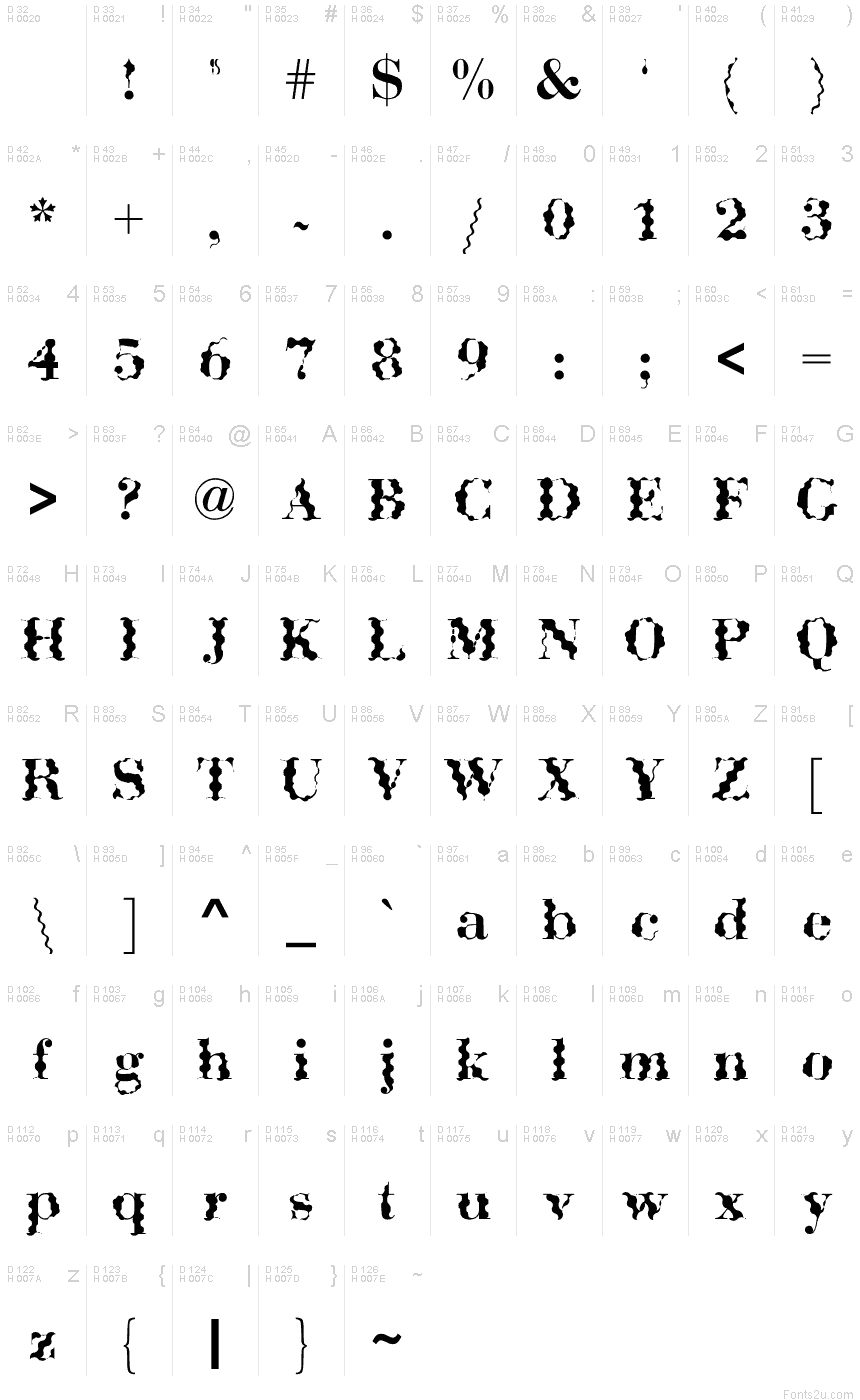
ABCTech Bodoni Wave
ABCTech Bodoni Wave font by Alltype is a free distorted serif typeface that twists classic elegance into something deliciously warped. The familiar Bodoni skeleton is still there, but it’s melted into inky, irregular blotches that feel fluid and almost organic, like letters seen through rippling water. The ABCTech Bodoni family roots keep it readable, while the wave effect adds a strange, hypnotic pulse that grabs attention instantly.
Using ABCTech Bodoni Wave, you can push headlines for rave posters, experimental album covers, horror titles, sci‑fi branding, edgy zines, and art events into surreal territory. This free font works best loud and large, where its wobbly contours and dense texture can really breathe. Try pairing it with a clean geometric sans in small text to anchor its wildness and keep layouts striking but still navigable.